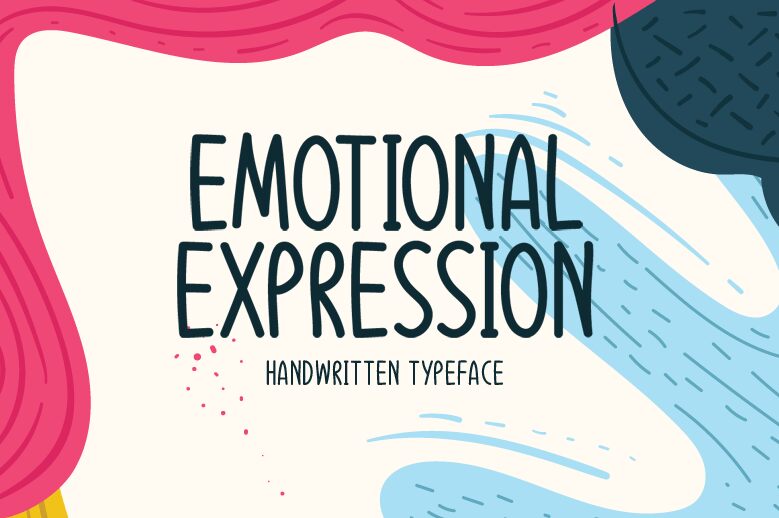
Emotional Expression, designed by Md Shohail Bhuian, is a captivating handwritten font that adds a personal touch to any project. With its semi-light weight and extra-condensed width, this font exudes elegance and sophistication.
Its all caps feature makes it ideal for eye-catching headlines, logo designs, and branding materials. Whether you're working on fashion magazines or exquisite invitations, Emotional Expression effortlessly conveys a sense of creativity and uniqueness.
Let this font infuse your work with emotion and charm, ensuring that your projects stand out from the crowd.